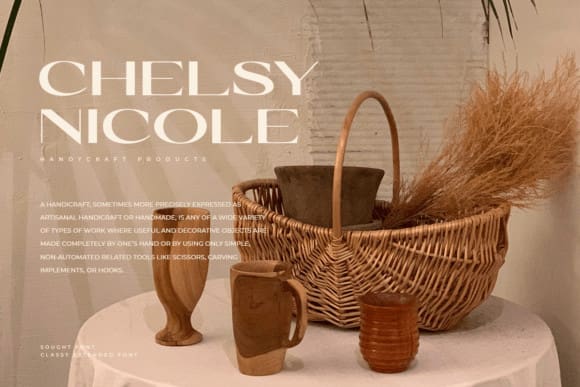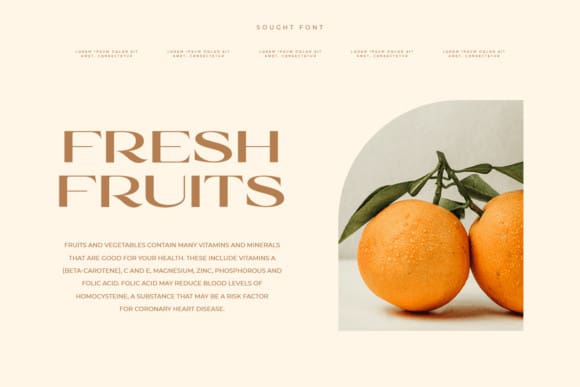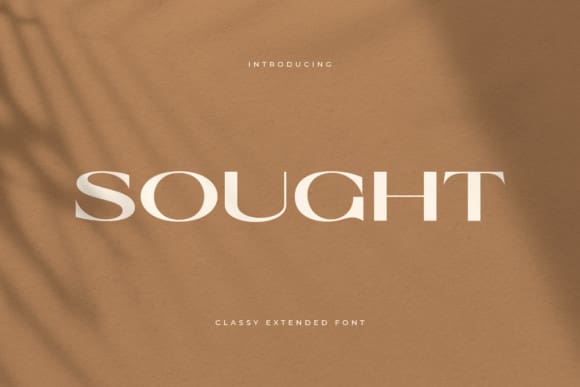
Sought Font
Sought Font is a stylish serif typeface exuding sophistication and charm. Its refined letterforms and subtle details capture attention, making it perfect for editorial design, branding, and luxury packaging. With a timeless elegance and versatile presence, this font elevates any project with its distinctively classy aesthetic.